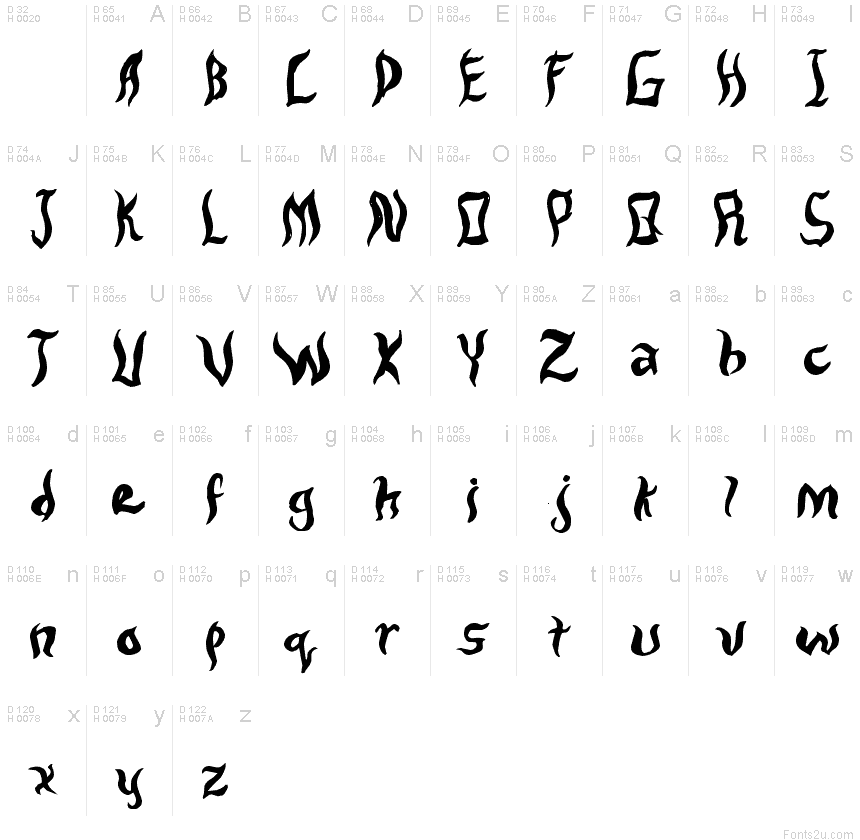
Bernie
Bernie font by Isabelle Trolio of Solar*Sister Fonts is a free handwritten font with a wild, inky energy. Each letter feels brushed on in a single, confident swipe-thick, smudgy strokes that swell and taper like wet marker on rough paper. The forms lean and twist just enough to feel human and a little mischievous, giving headlines a raw, expressive voice rather than a neat, scripted look.
Using Bernie, this free font shines on posters, zines, band merch, protest signs, moody book covers, and bold social graphics where you want text to growl more than whisper. Its irregular rhythm pulls the eye across a line, so it works best big and loud rather than in long paragraphs. Pair Bernie with a clean, condensed sans serif in small sizes to keep layouts readable while letting its gritty personality steal the show.